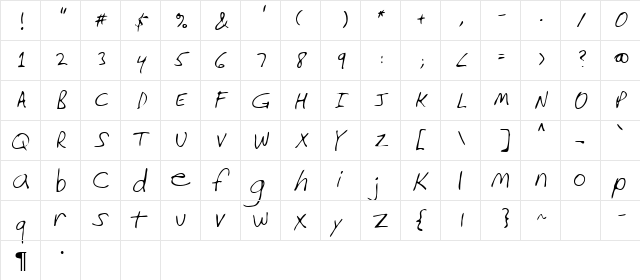
Goldish Regular
Design Context for Goldish Typeface
Goldish is a composed and adaptable typeface that performs quietly and consistently across a wide range of design contexts.